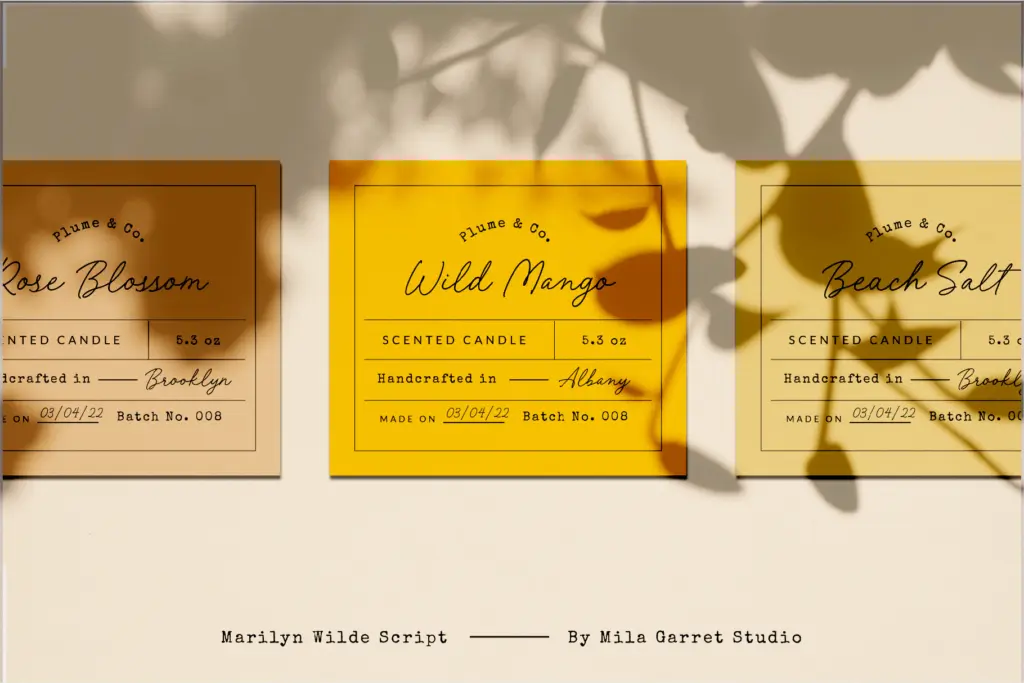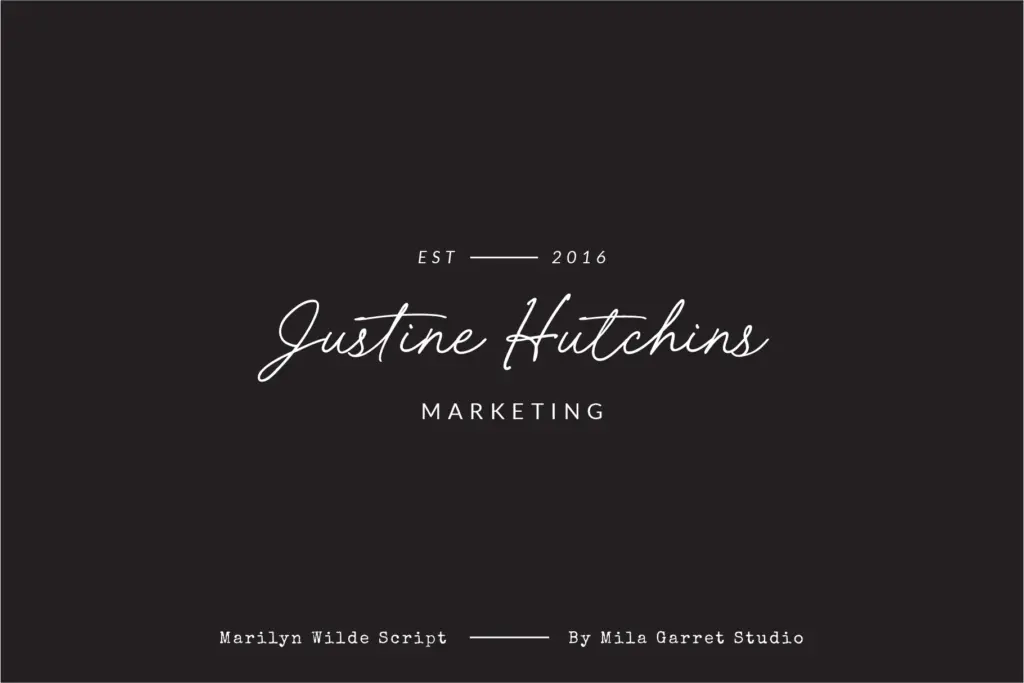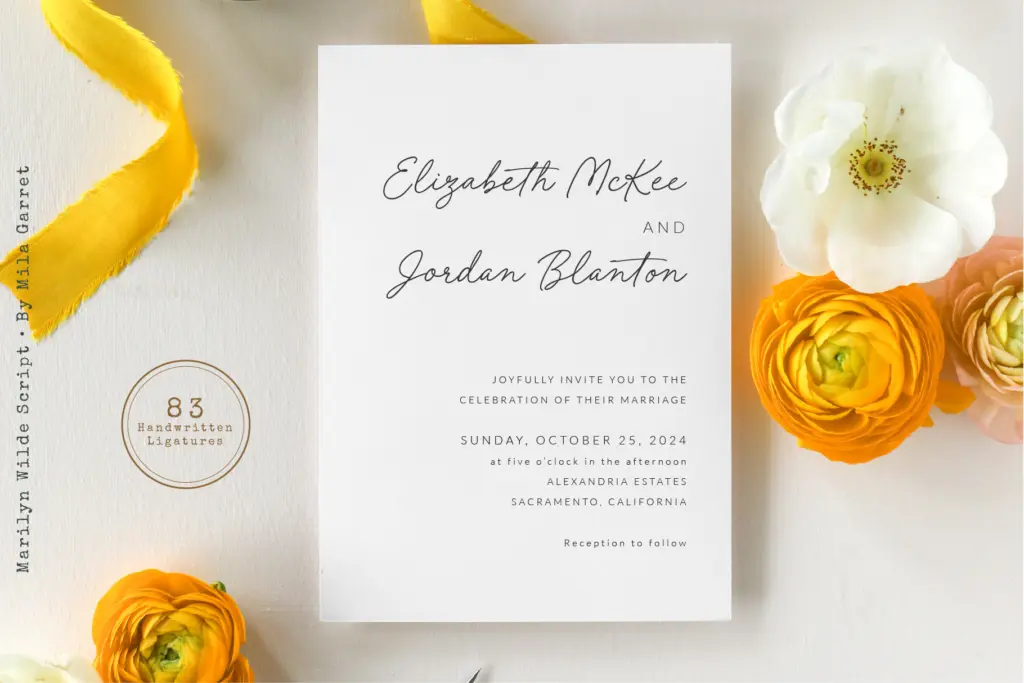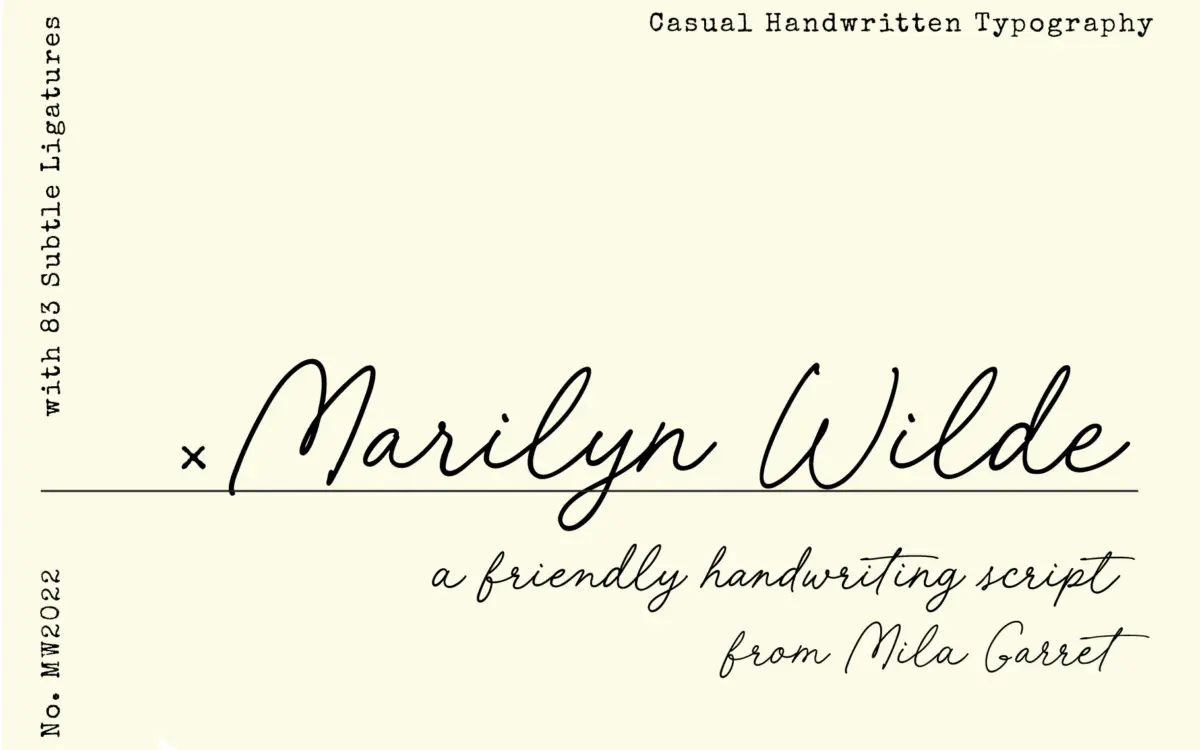
Marilyn Wilde sits in the crowded but reliable territory of casual cursive scripts modelled on neat, unhurried handwriting rather than calligraphic flourish. The strokes stay fairly consistent in weight, with only mild contrast between thick and thin, which keeps the letters looking like they came from a felt-tip or a fine brush pen rather than a pointed nib. Curves are rounded and slightly bouncy without tipping into the exaggerated swash territory that a lot of script fonts chase. It reads as friendly and a touch informal, closer to a personal note than a formal invitation script.
The joins between letters are where the design does its real work. Connections are smooth and low-key, avoiding the awkward pinch points that plague a lot of handwriting fonts when certain letter pairs meet. Letterforms lean gently to the right, giving the baseline a sense of forward motion without looking rushed. It’s a font with a light touch rather than a strong personality — which is either a strength or a limitation depending on what you need it to do.
The set includes subtle ligatures, which smooth over some of the more common awkward letter combinations that plague connecting scripts — double letters, certain consonant clusters, that sort of thing. There’s also a rough version bundled in, which adds texture and inconsistency to the stroke edges for a more analog, hand-pressed look. That’s a genuinely useful inclusion: the clean version can feel a little sterile blown up large, and the rough variant gives you an alternative without needing a second purchase or a texture filter in Photoshop.
Beyond that, the feature set is modest. This isn’t a script built around an elaborate system of contextual alternates or a deep swash library the way some higher-end script families are. It’s a handwriting font in the more literal sense — one style, a companion rough version, and ligatures doing the connective work. Designers used to scripts with dozens of alternate letterforms per character may find the range here narrower than expected.
This is a font suited to short bursts of text rather than paragraphs. Instagram captions, pull quotes, logotypes, greeting card sentiments, wedding stationery accents — anywhere a handwritten flourish adds warmth without needing to carry a lot of reading weight. The moderate stroke contrast means it should hold up reasonably well at smaller sizes on web and print alike, though like most scripts it wants generous size and spacing rather than being crammed into body copy.
For branding, it leans toward soft, approachable, feminine-coded identities — bakeries, florists, boutique studios, personal blogs — rather than anything that needs gravitas or edge. Pair it with a plain sans serif for contrast in longer layouts; the script should stay in a supporting role. It’s a dependable, unpretentious choice for designers who need a cursive that doesn’t ask for much attention but reads warmly wherever it lands.
- Smooth ligature-based joins avoid the awkward letter collisions common in connecting scripts
- Bundled rough version gives a genuine textural alternative without extra effort
- Consistent, moderate stroke weight keeps it legible at smaller display sizes
- Feature set is thin compared to scripts offering extensive contextual alternates and swashes
- The style is pleasant but generic, without a distinctive hook that sets it apart from similar handwriting scripts
Marilyn Wilde is a competent, unfussy handwriting script that does exactly what it says: neat cursive with a friendly lean and a rough alternate for texture. It won't surprise anyone who's used a few dozen scripts before, but it's dependable for short-form branding and social use. Don't expect a deep alternate-letter system or much personality beyond pleasant.